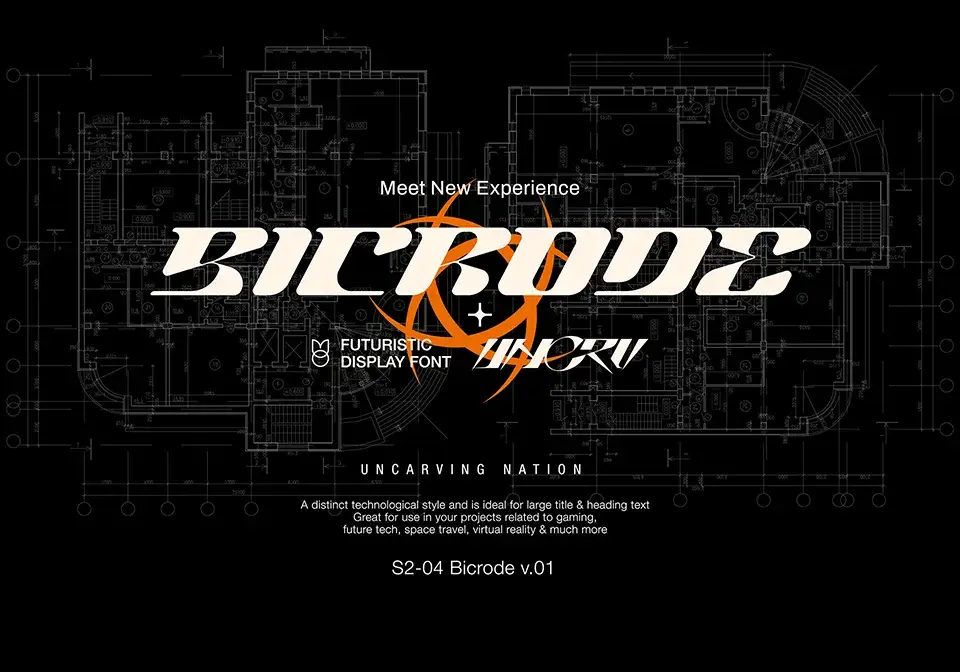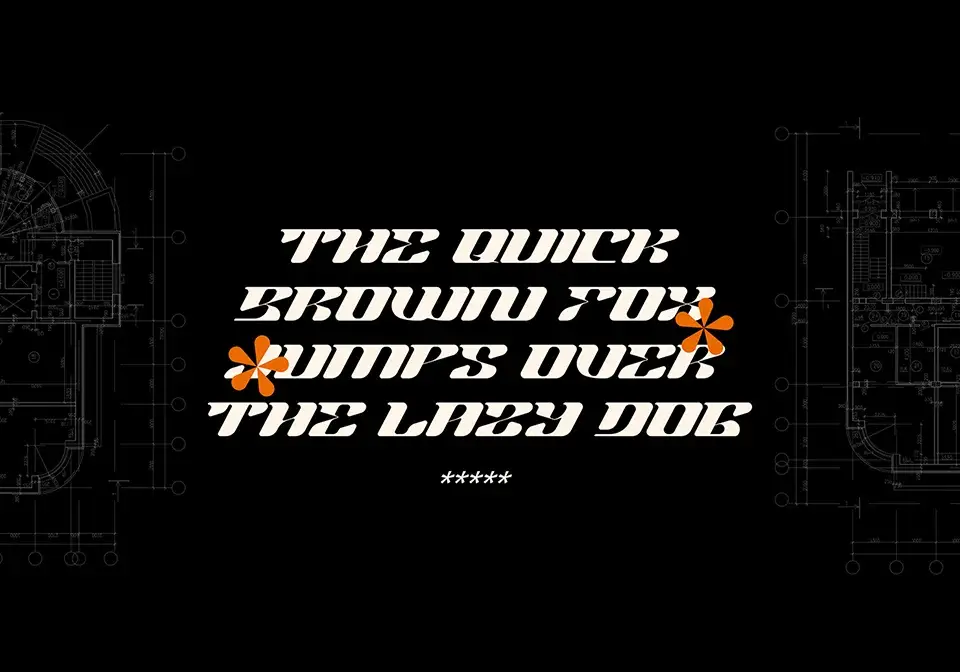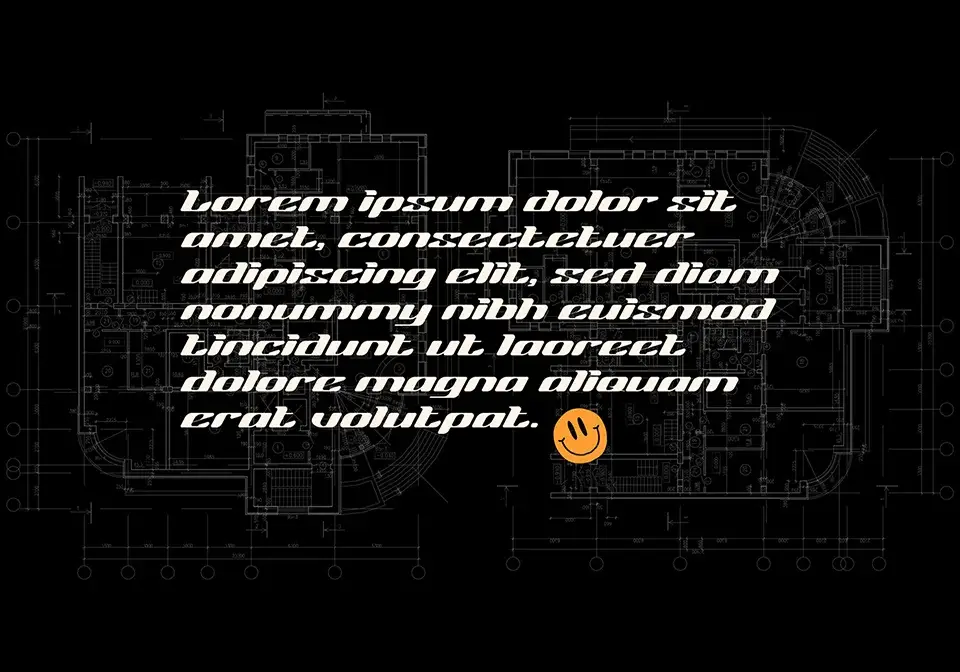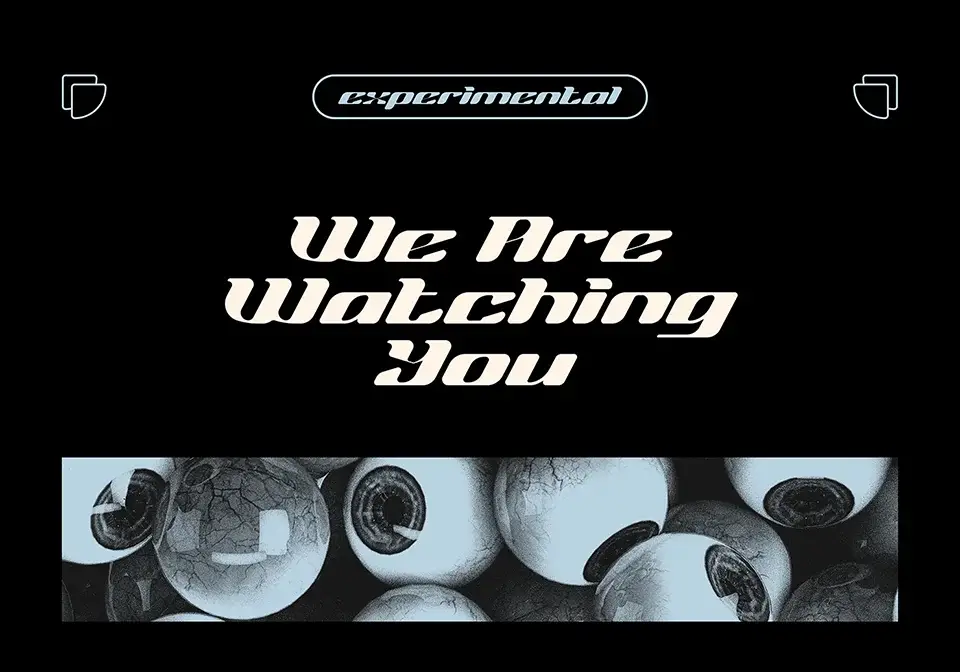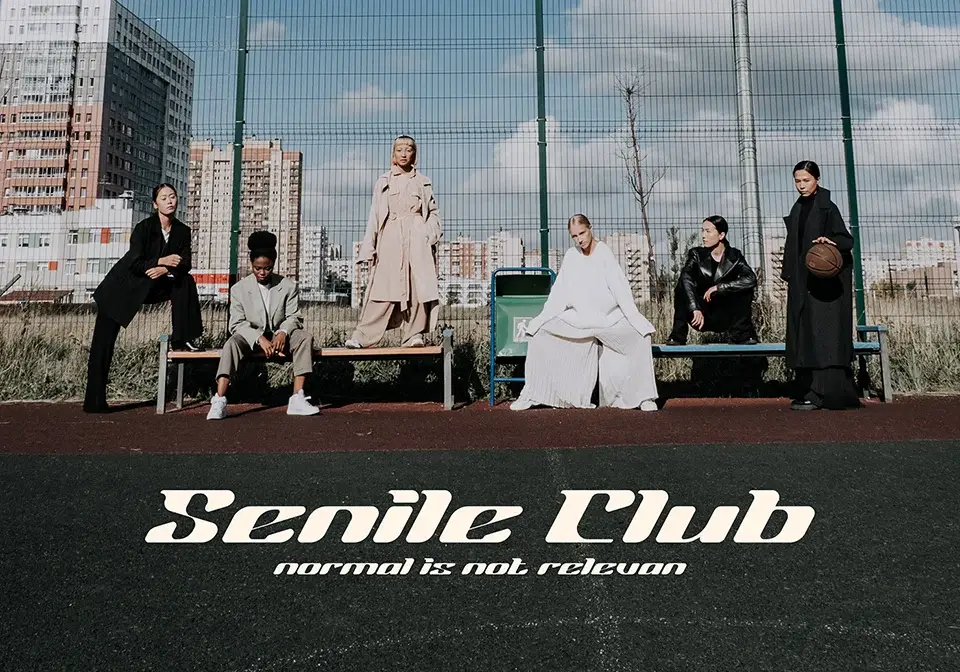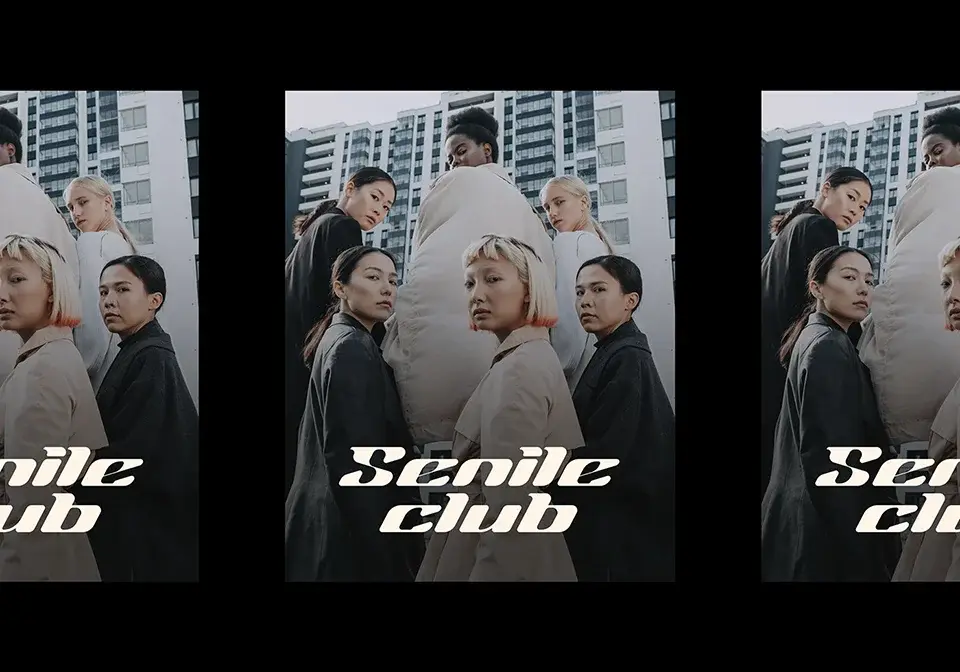
Bicrode Font
Bicrode Display Font is a striking and modern typeface designed by Uncarving Nation, characterized by its futuristic style and playful smoothed corners. This font is perfect for projects that require a bold and dynamic aesthetic, making it ideal for gaming, technology, space themes, and virtual reality applications. With its unique shapes and an italic touch, Bicrode adds a contemporary flair to titles, logos, and branding materials. Although it is free for personal use, a premium version is available for those seeking to unlock its full potential for commercial applications.
Features of Bicrode Display Font:
- Futuristic design with smoothed corners
- Uppercase, lowercase, numbers, punctuation, and symbols included
- Ideal for digital and print projects
- Enhanced readability for headings and titles
What types of projects is Bicrode suitable for?
It is ideal for gaming, technology, space themes, virtual reality, branding, and print materials.